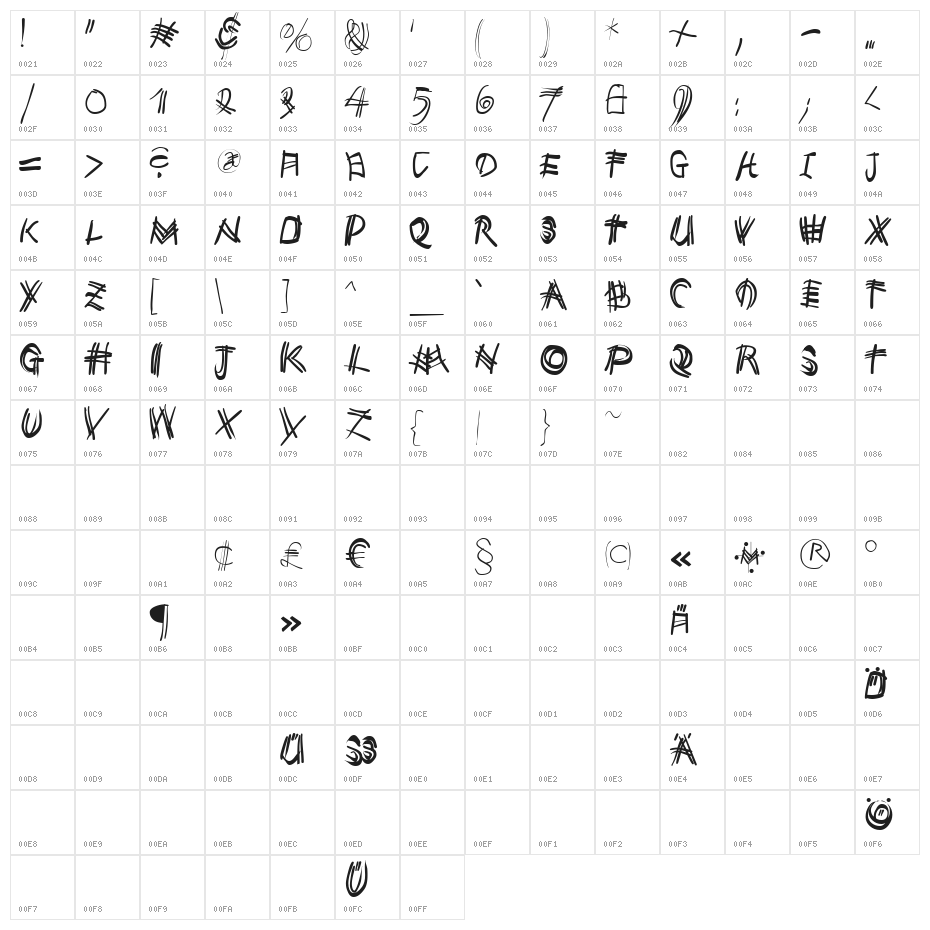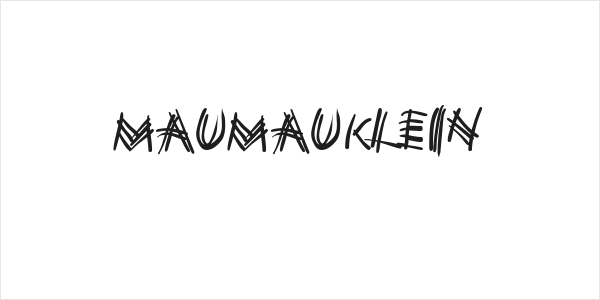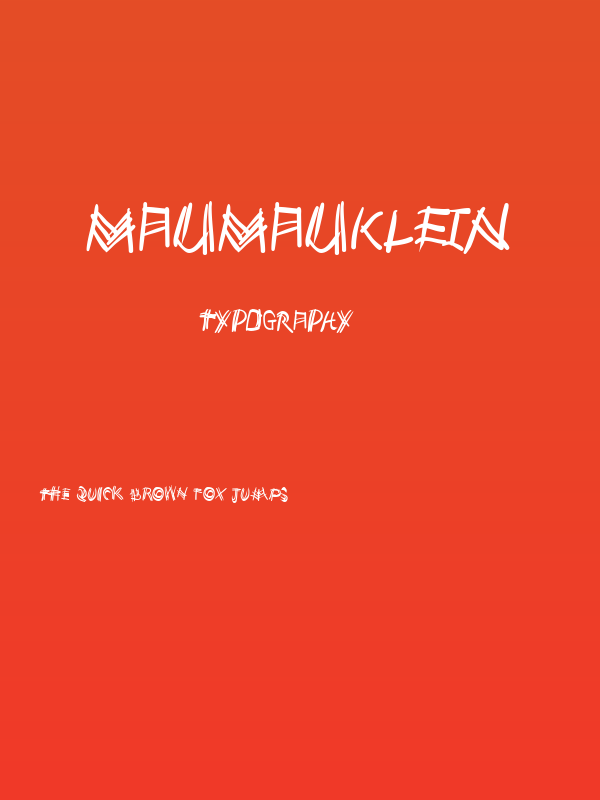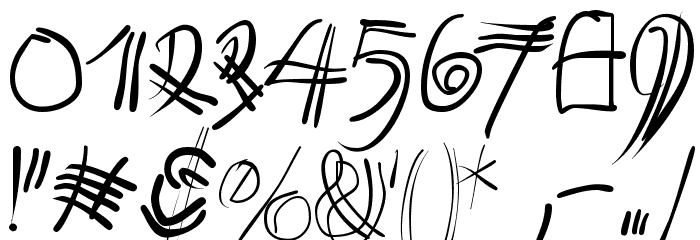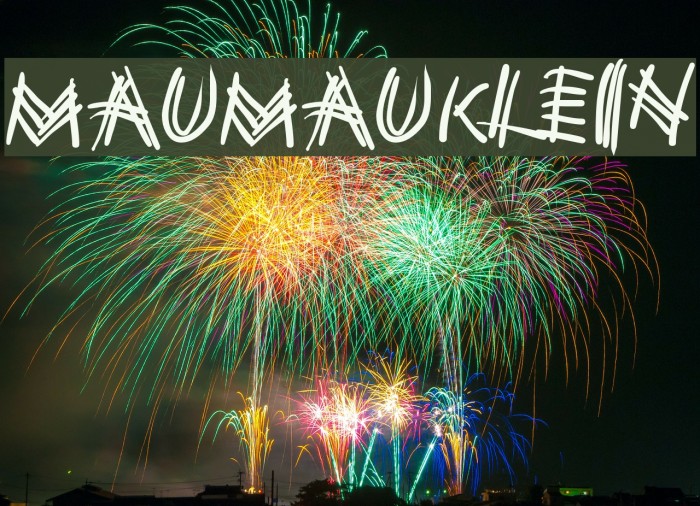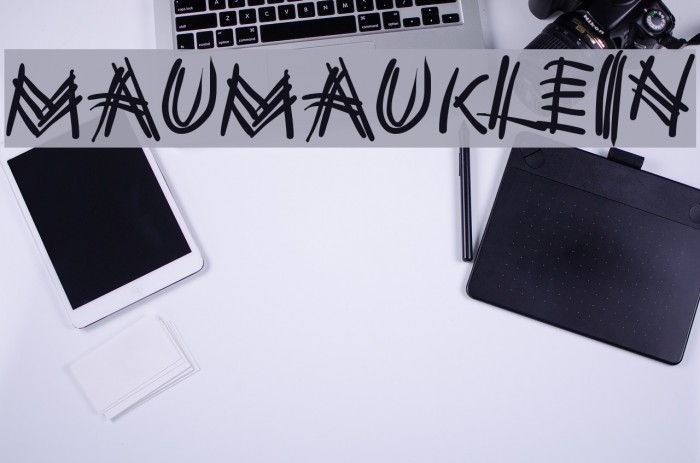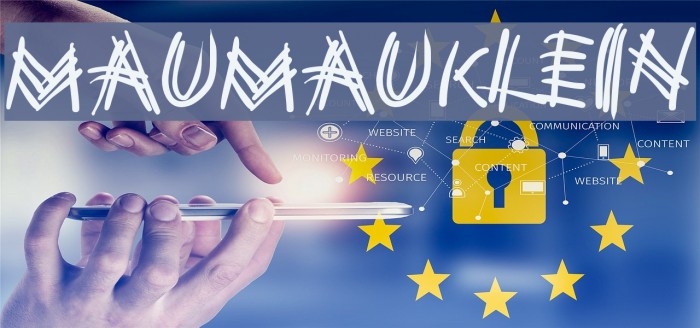
MauMauKlein Font
MauMauKlein Description
This font features a highly expressive and dynamic style, characterized by its bold, irregular strokes and a sense of movement. The letters are crafted with a hand-drawn appearance, giving them a unique, artistic flair. The uppercase and lowercase letters maintain a consistent style, with exaggerated curves and angles that create a sense of energy and spontaneity. The numerals and special characters follow the same design principles, ensuring a cohesive look across all glyphs. This font's distinctive style makes it suitable for creative and unconventional projects.
| Use Case | Logos, Posters, Artistic projects |
| Proposed Projects | Ideal for album covers, posters, graffiti art, and any project requiring a bold, artistic touch. |